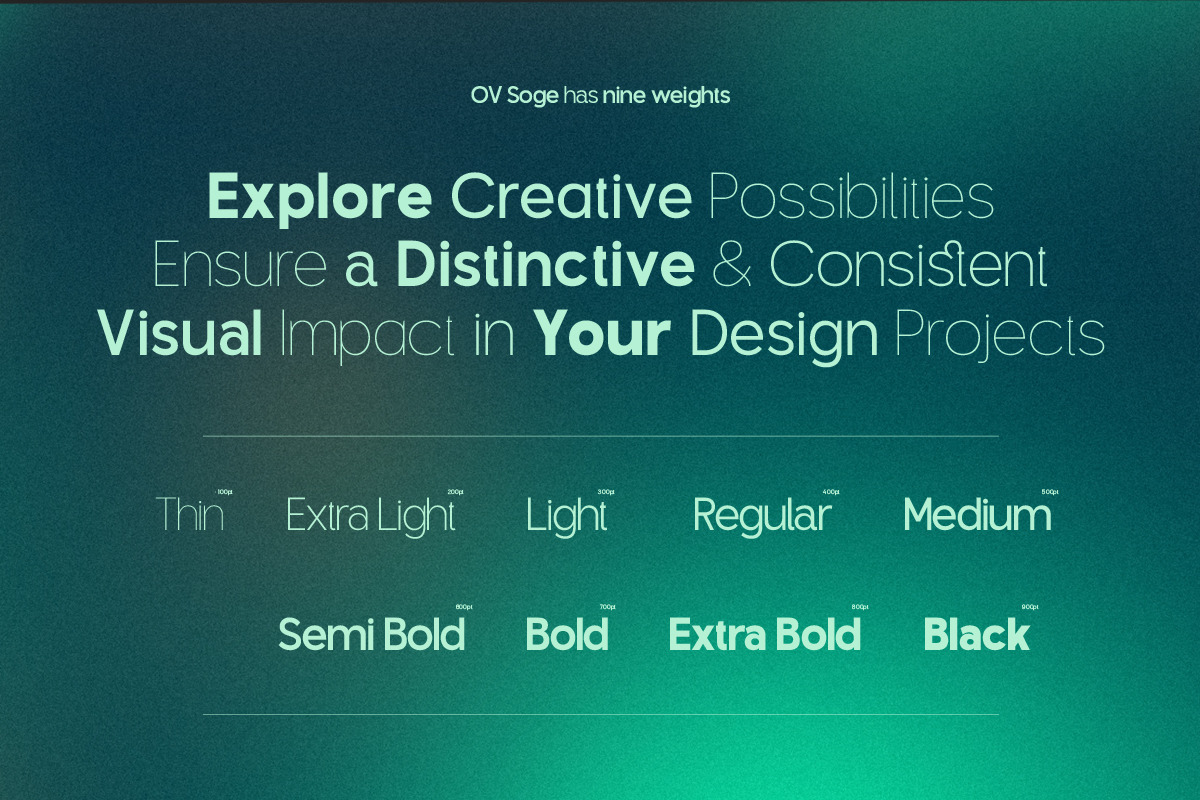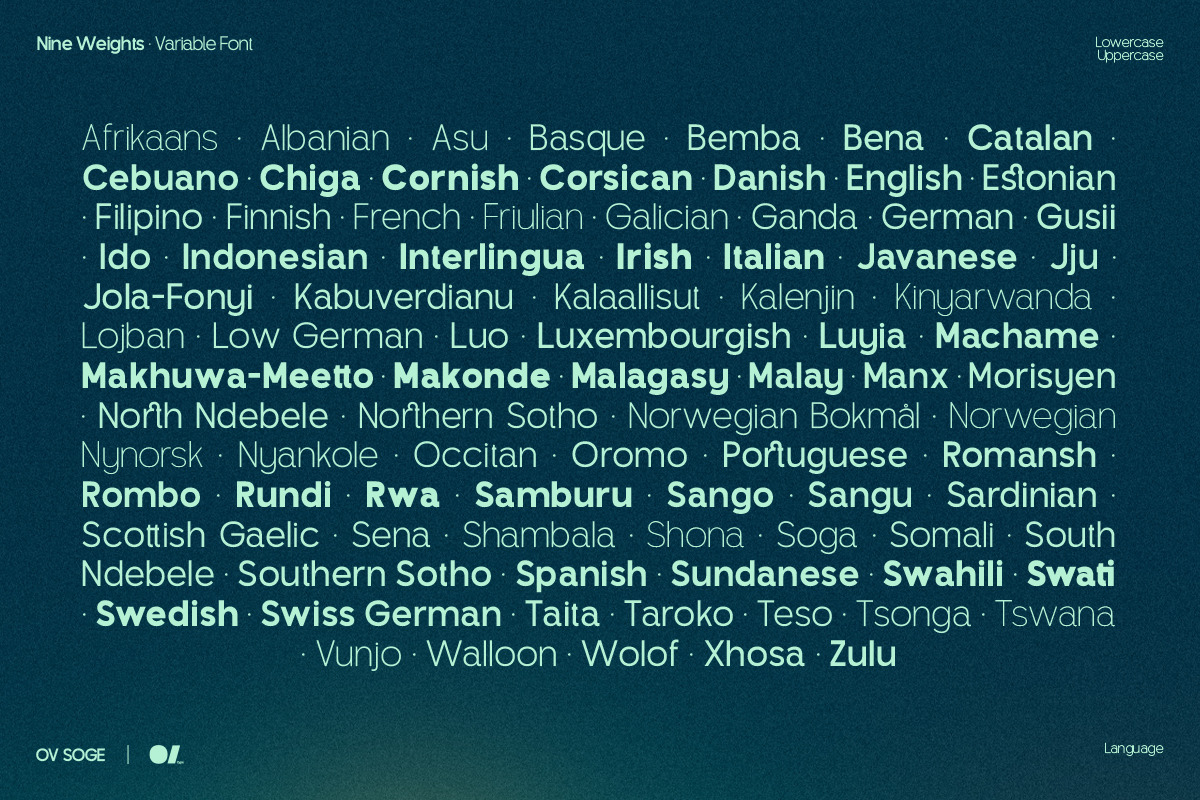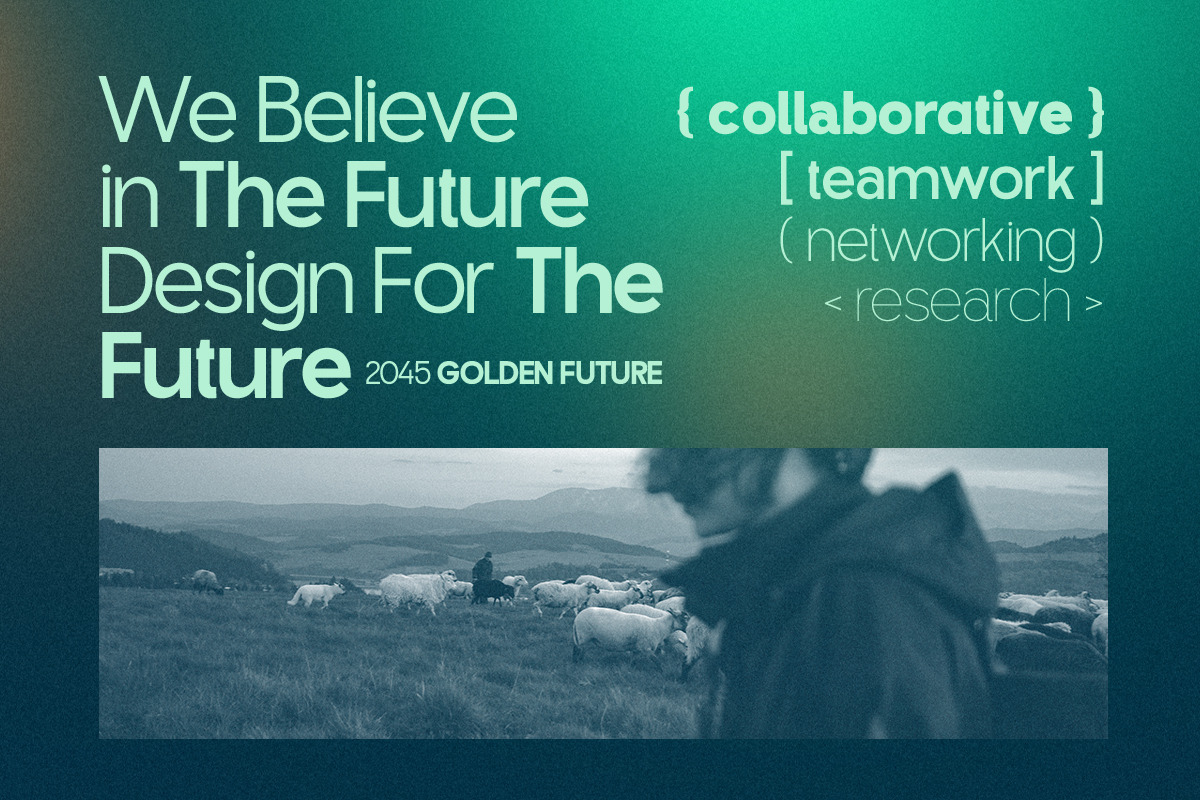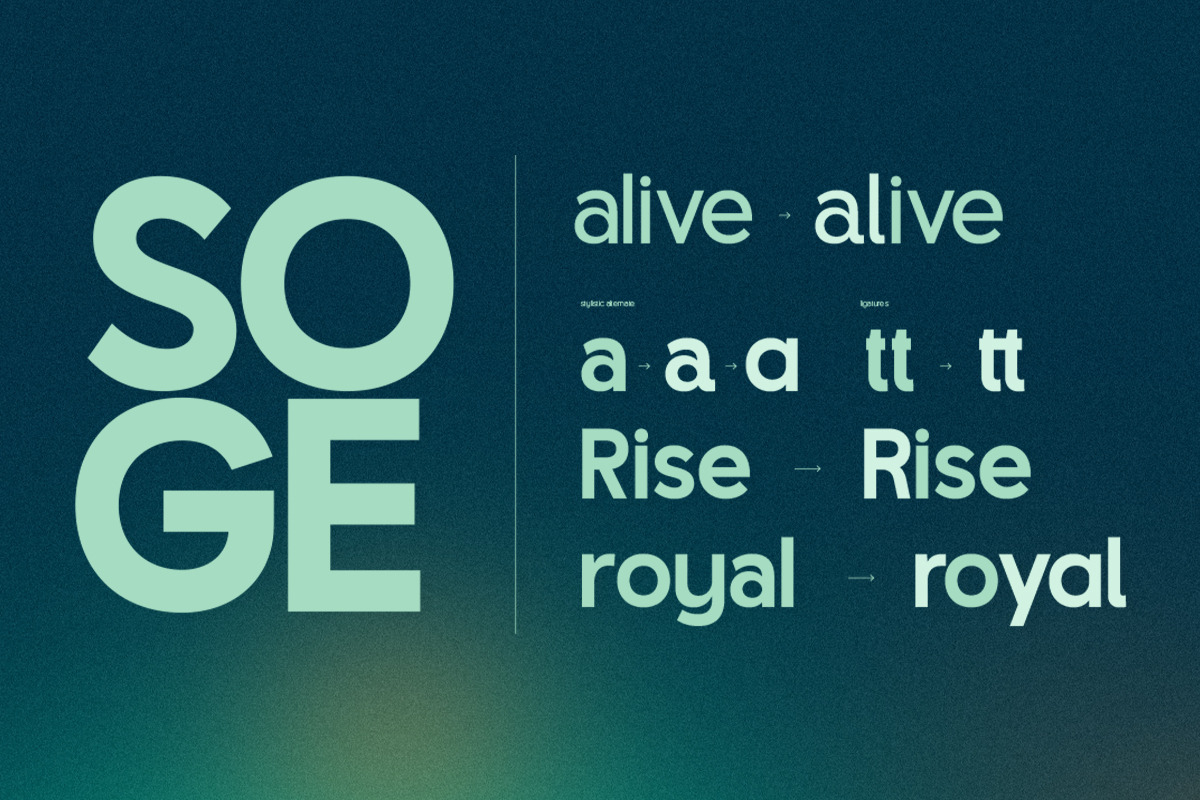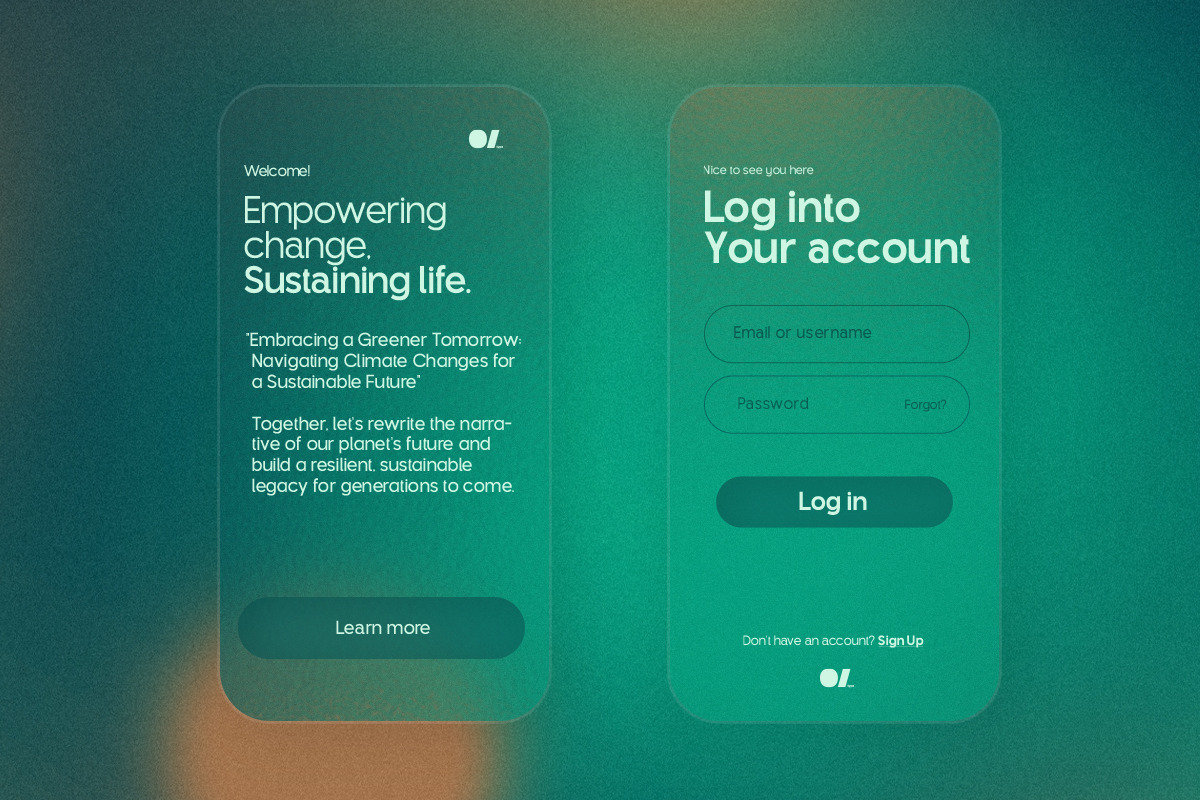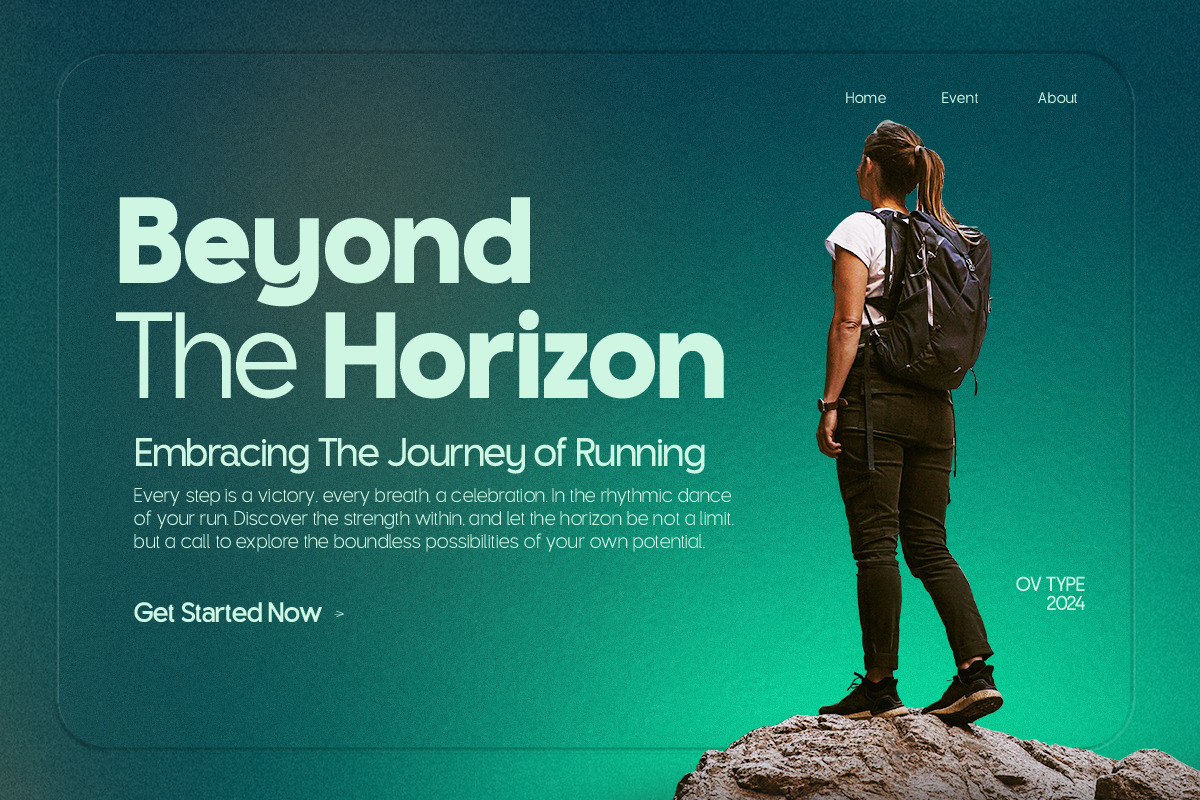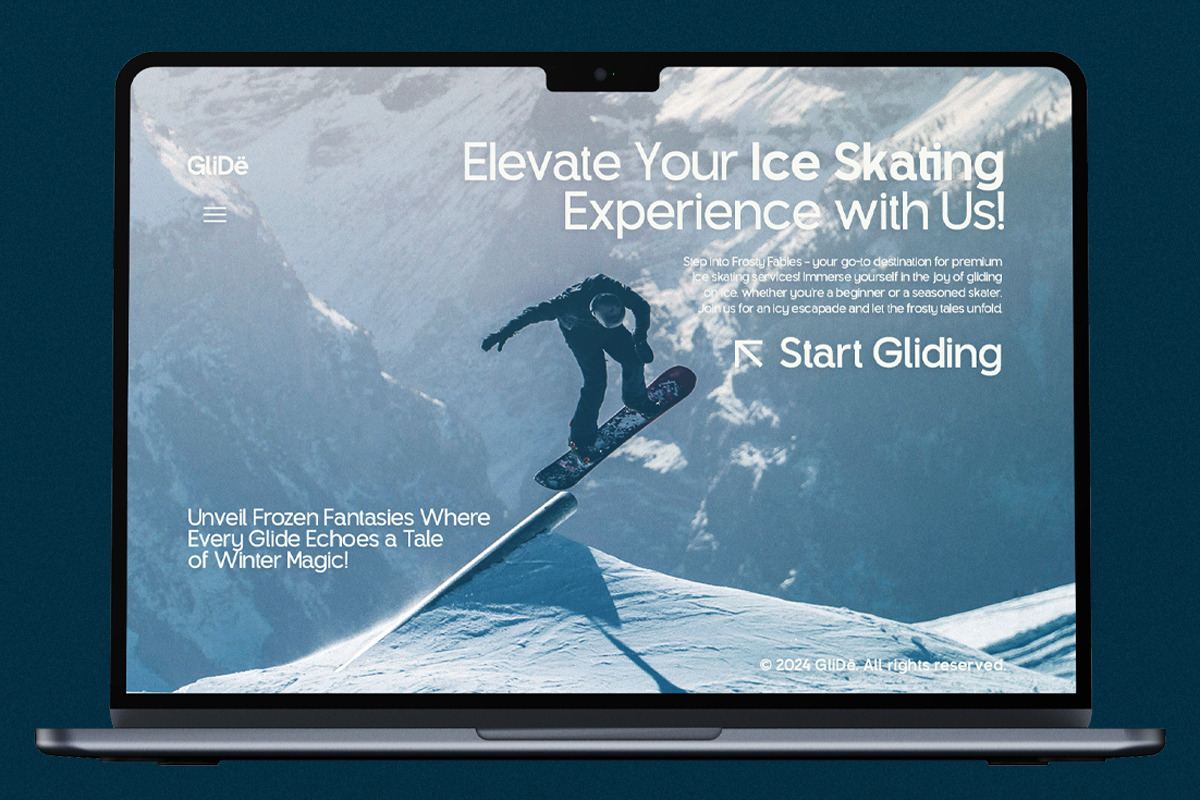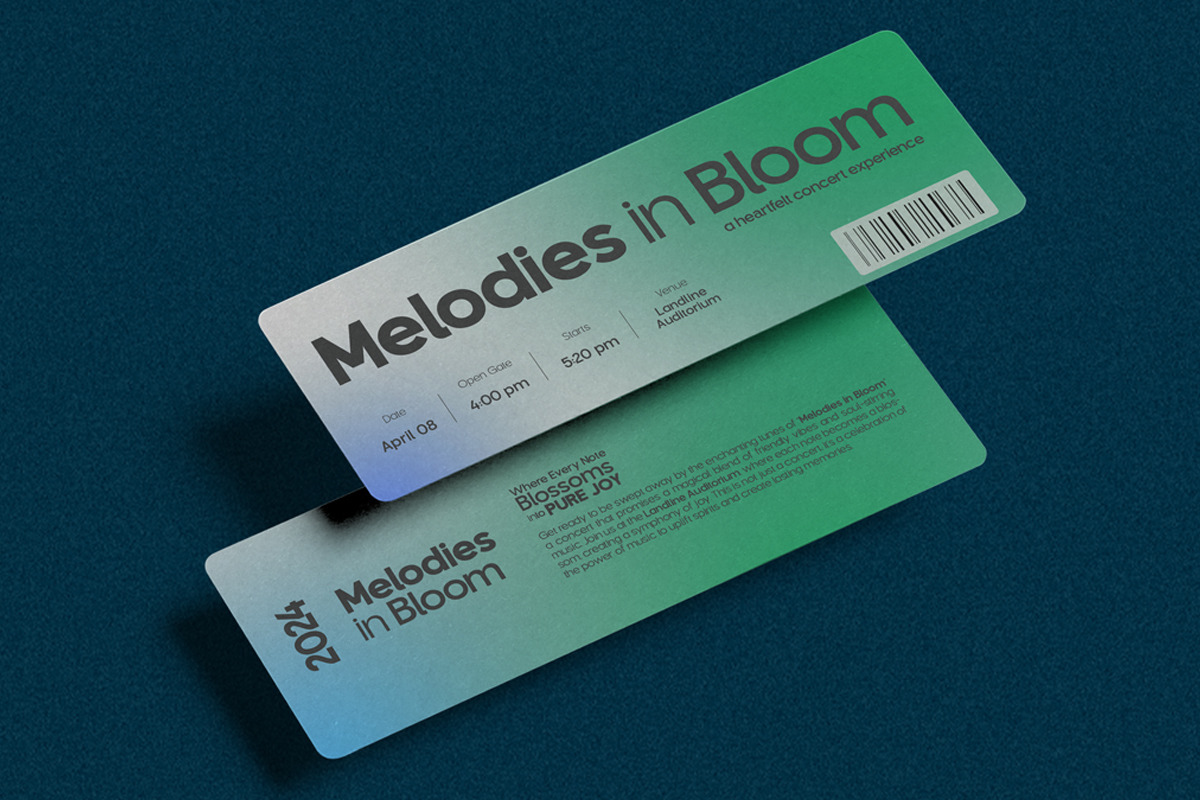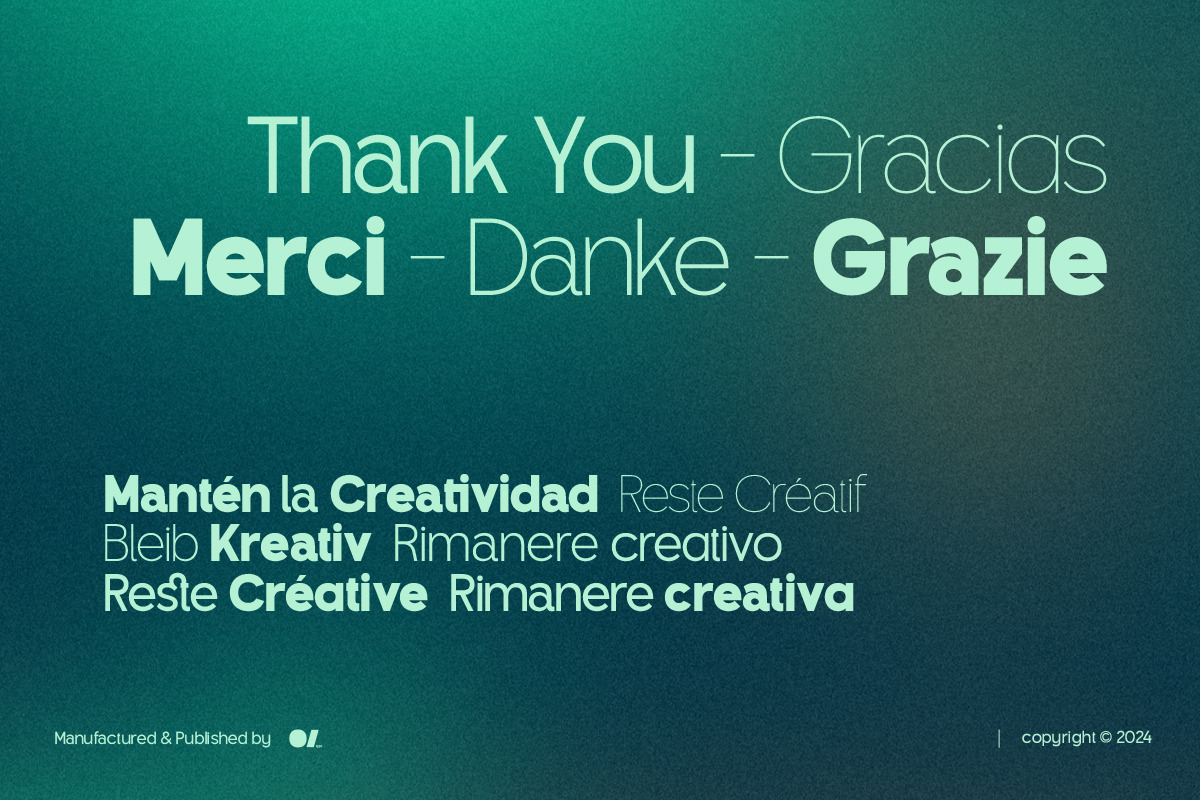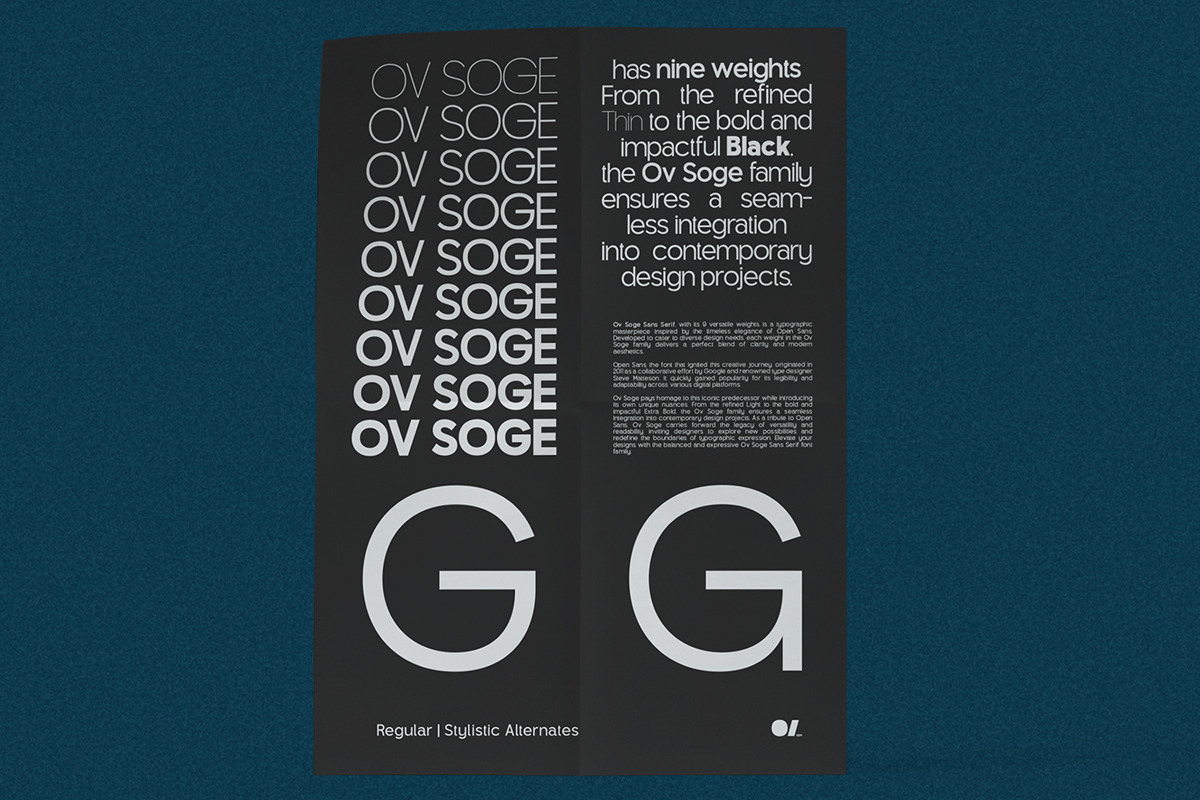
OV Soge - Sans Serif Family
OV SOGE is a geometric sans serif font designed for versatility and modern aesthetics. Version 2.000 boasts enhanced kerning for improved readability and the addition of stylistic alternates for creative exploration. The font's variable weight feature allows for seamless adjustments to fit various design contexts.